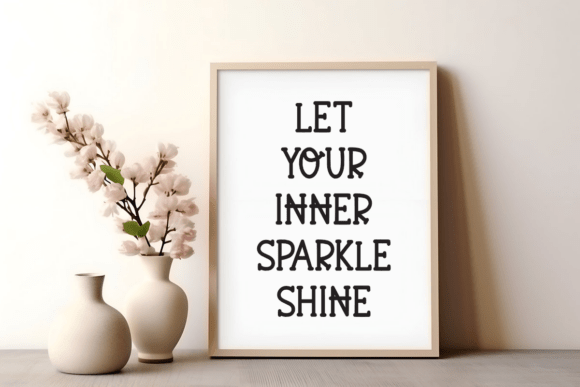
Sparkle Patch Font
Sparkle Patch is a playful slab serif font that brings a burst of charm and sweetness to your designs. With its rounded terminals and candy-inspired character, it’s perfect for children’s projects, snack packaging, logos, and any layout that craves a fun, bouncy look. This font makes your words feel as soft and delightful as a gummy treat!